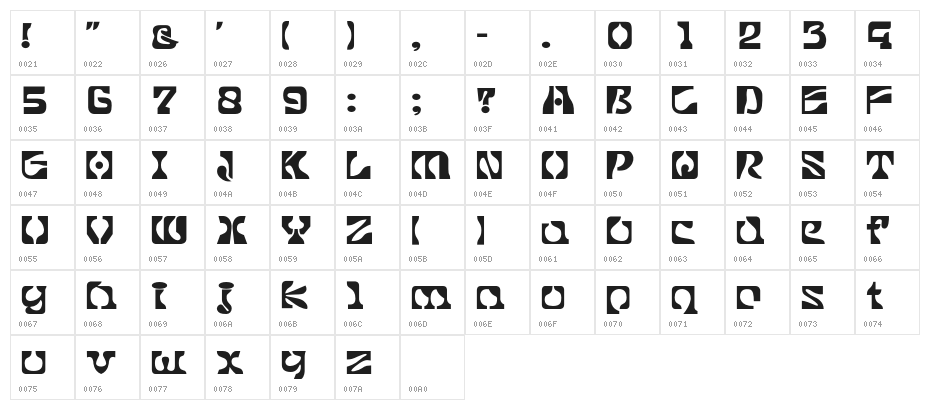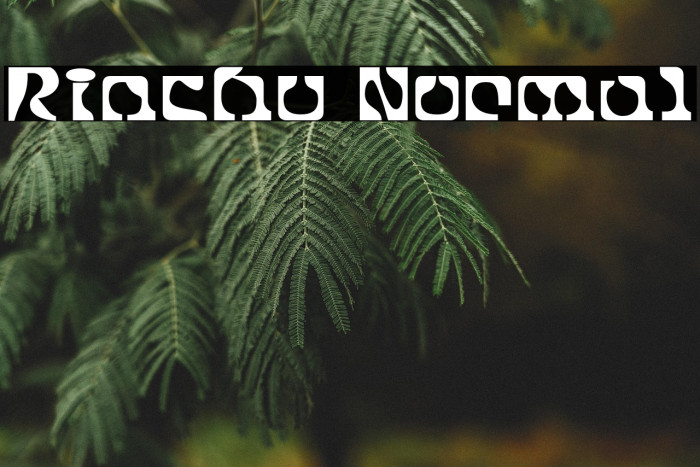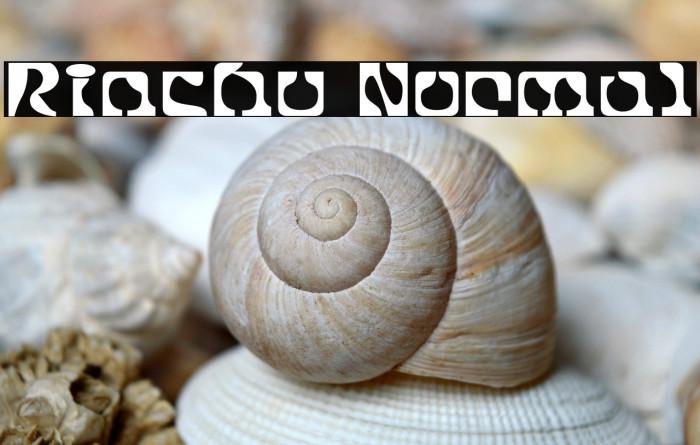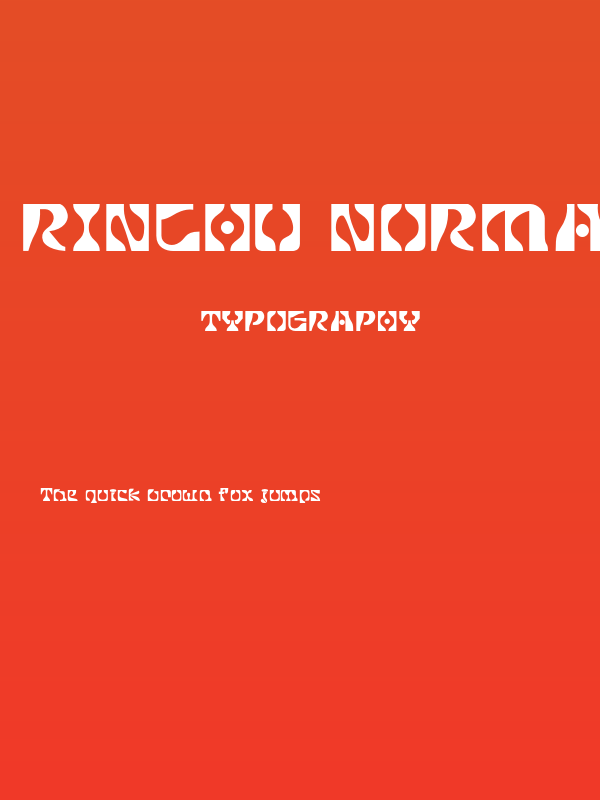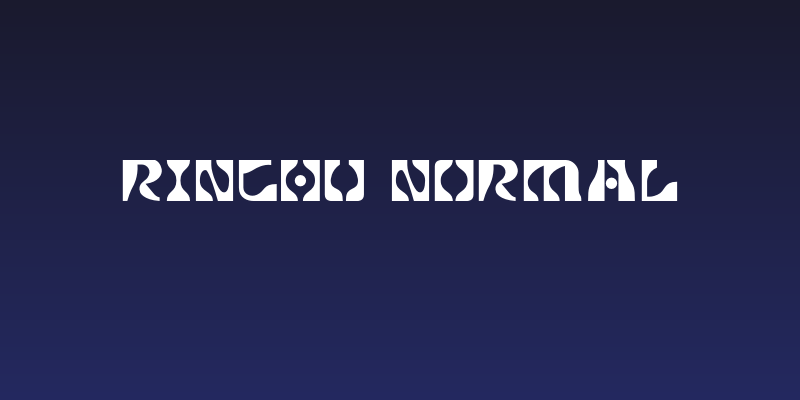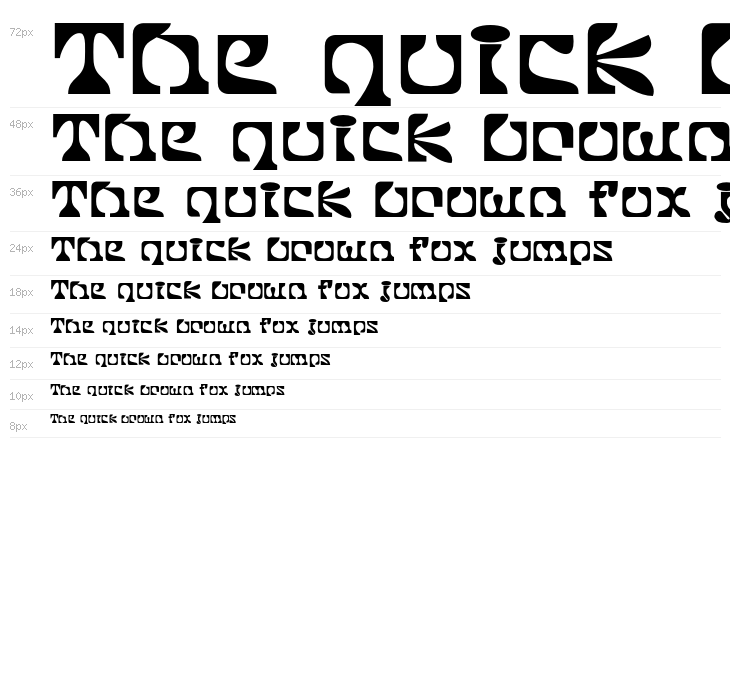
Rinchu Normal Font
Rinchu Normal Description
This font features a bold and striking design with a unique, artistic flair. The characters are crafted with a combination of thick and thin strokes, creating a high contrast that draws attention. The style is distinctly decorative, with each letter exhibiting a playful and abstract form. The uppercase and lowercase letters maintain a consistent design theme, while the numbers and special characters complement the overall aesthetic. This font is ideal for projects that require a bold statement and a creative touch.
| Proposed Projects | Ideal for posters, branding, album covers, and creative advertising. |